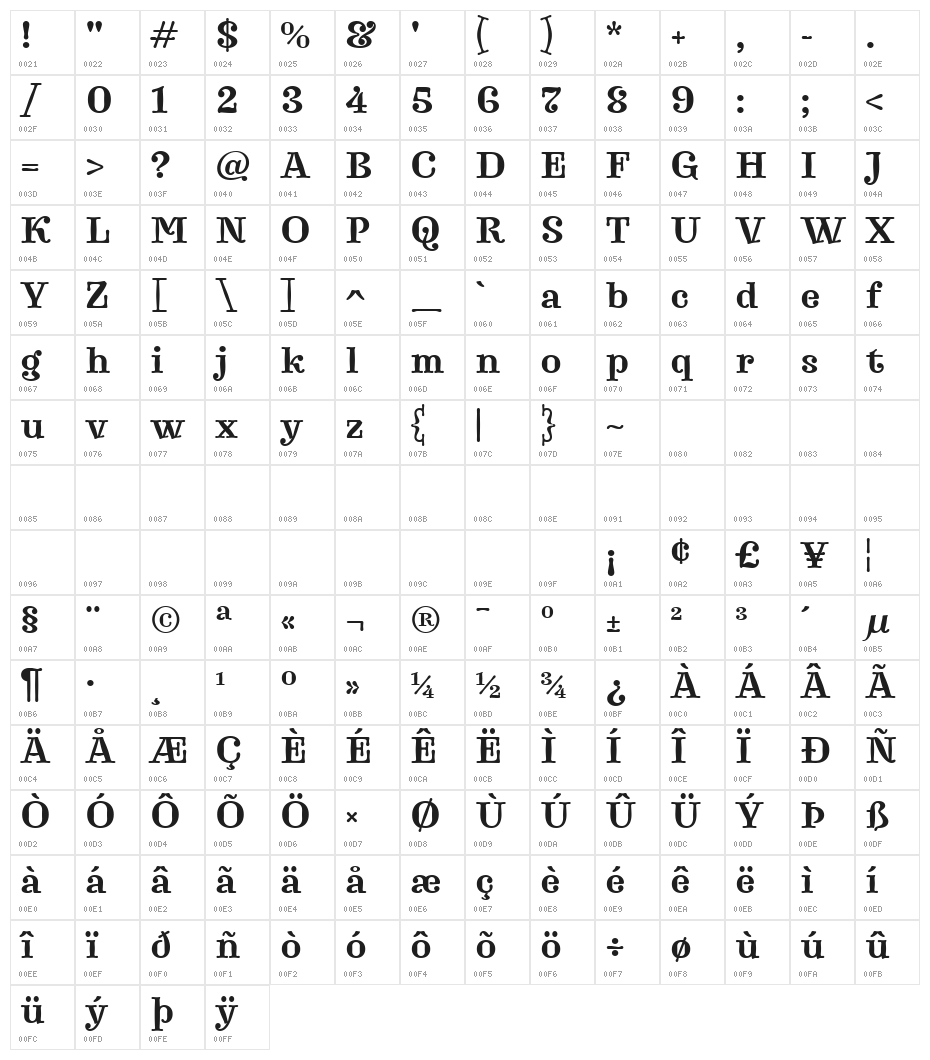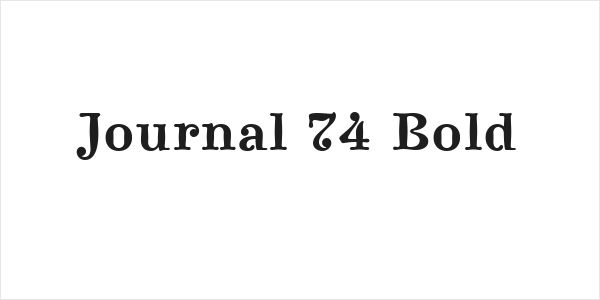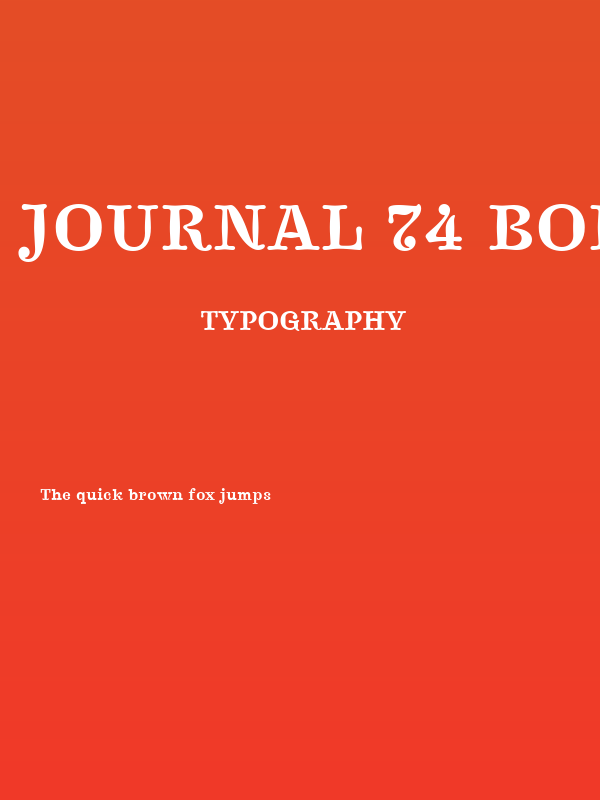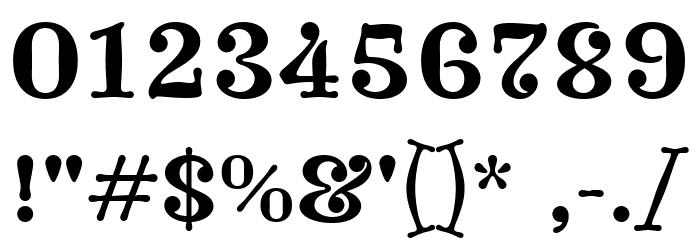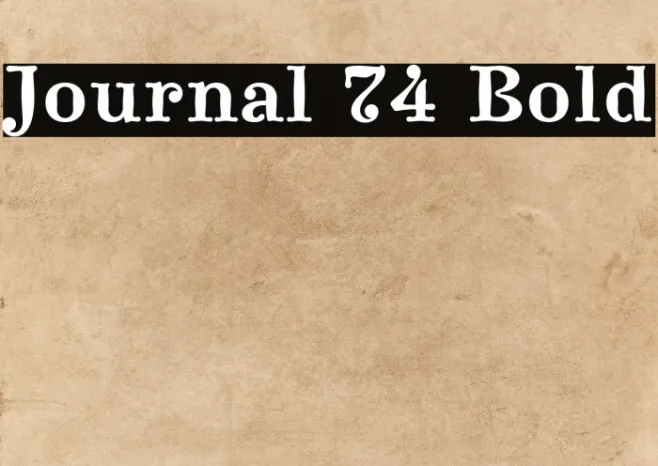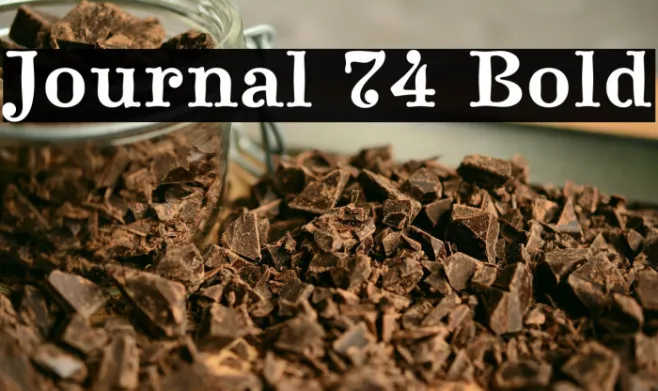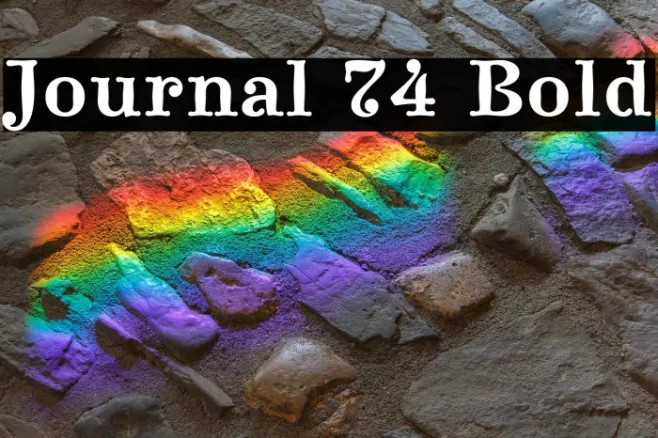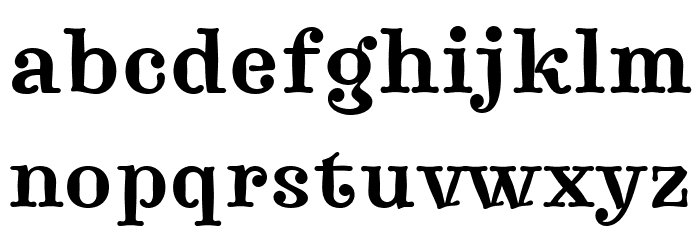
Journal 74 Bold Font
Journal 74 Bold Description
This font features a bold and robust design with pronounced serifs, giving it a classic and authoritative appearance. The characters are well-defined with a strong presence, making it suitable for impactful headlines and titles. The uppercase letters exhibit a traditional serif style, while the lowercase letters maintain a consistent weight and structure. The numerals are clear and easily distinguishable, complementing the overall bold aesthetic. Special characters are included, maintaining the same boldness and clarity, ensuring versatility in various design contexts.